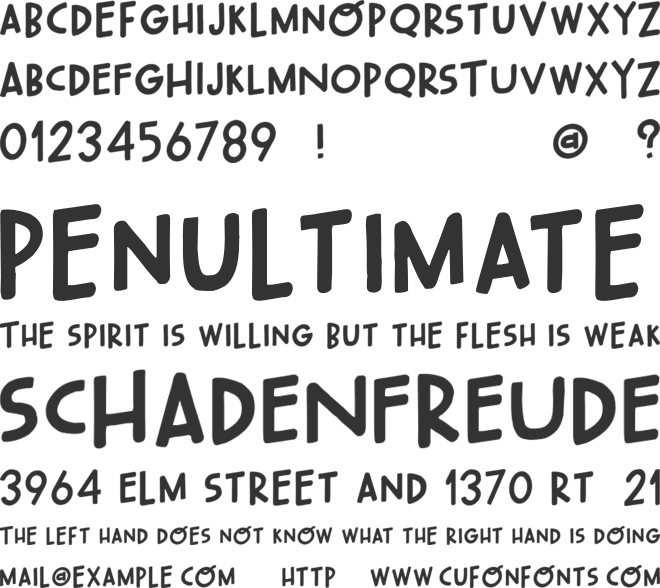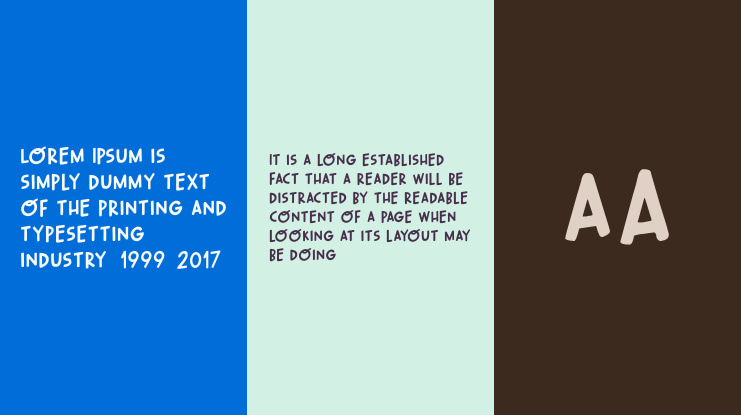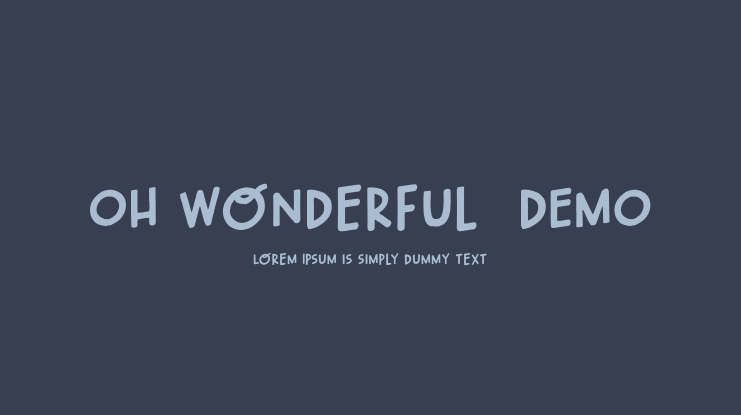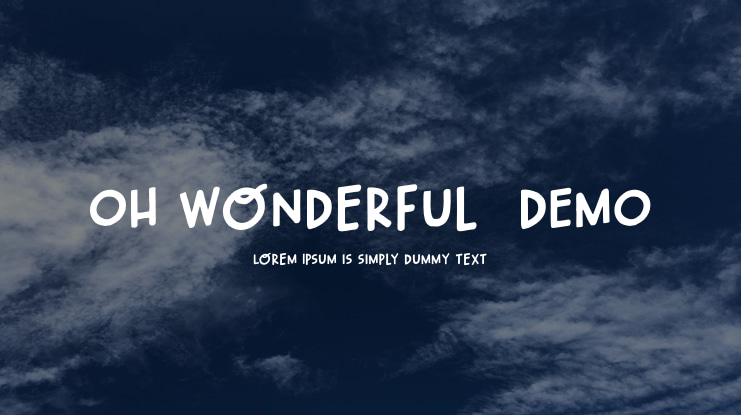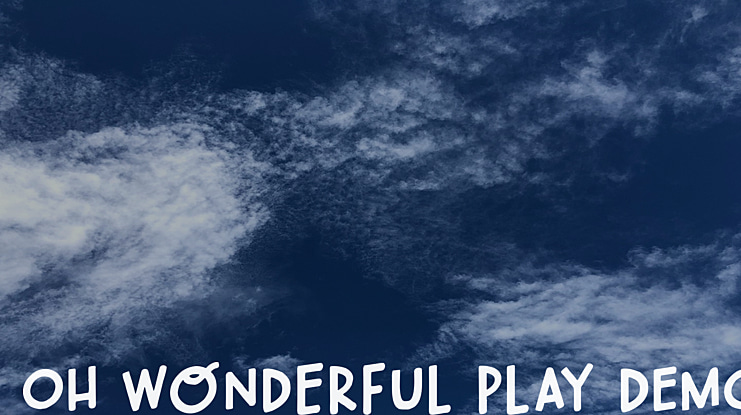
Oh Wonderful DEMO Font Family
Oh Wonderful - a sans serif with 3 different variations; regular, play, italic. It holds true to the look of a basic sans with uneven heights that make it fun to pair with a script font.